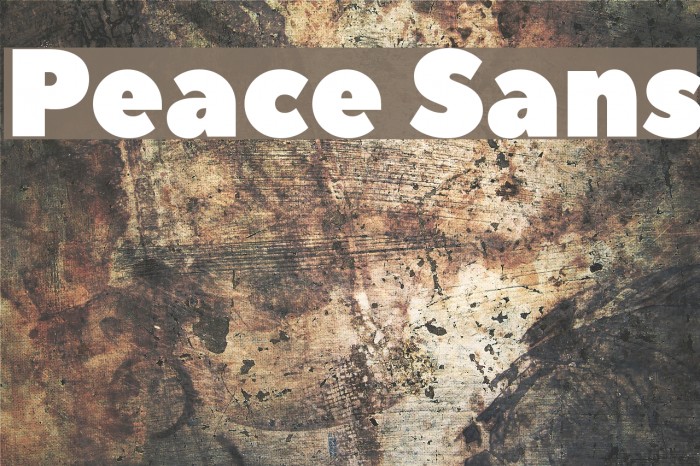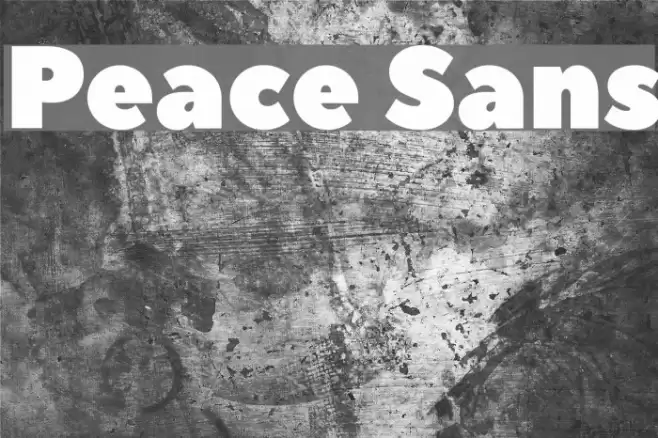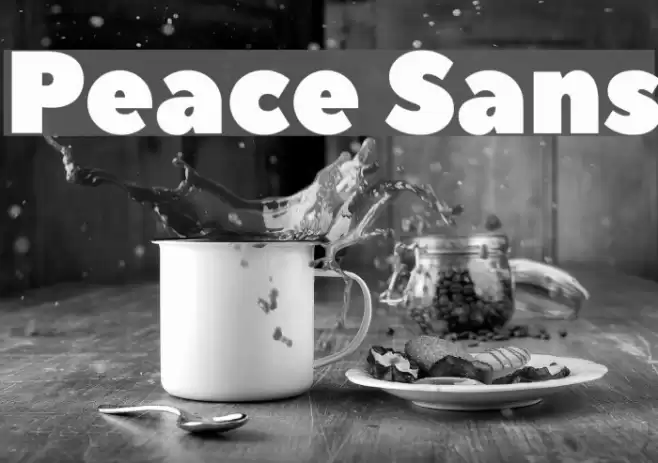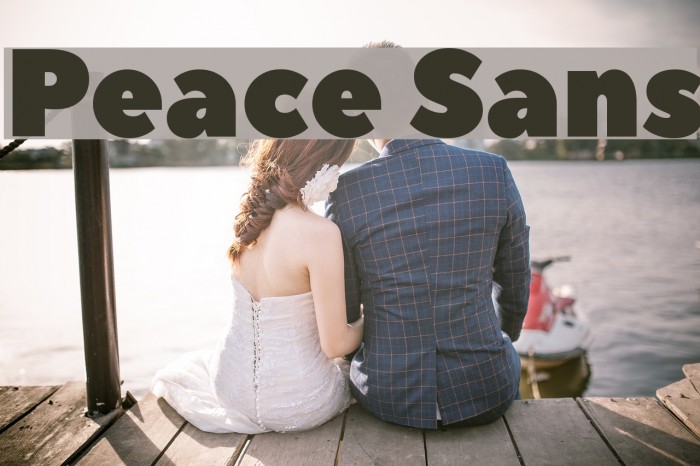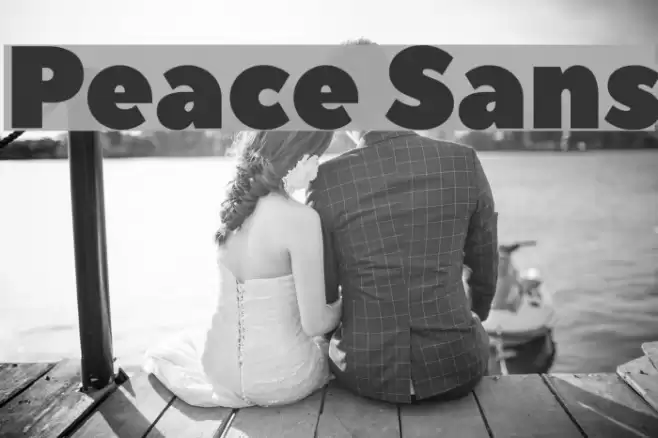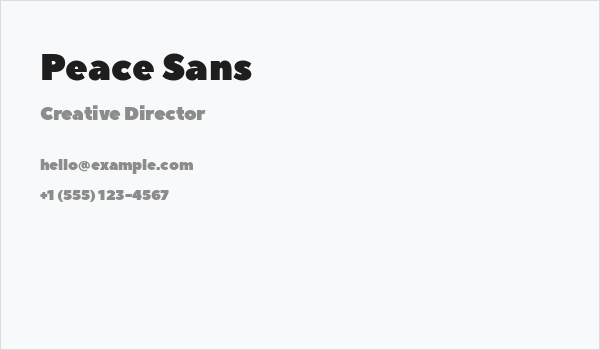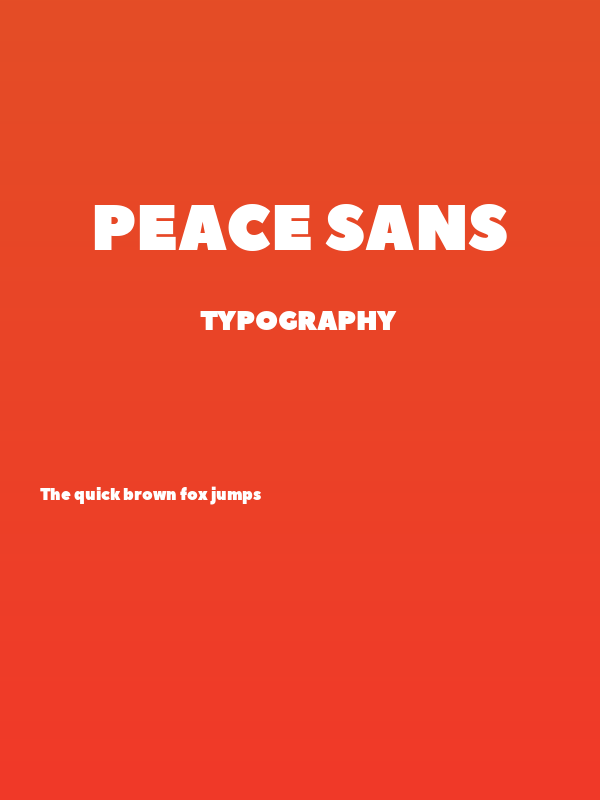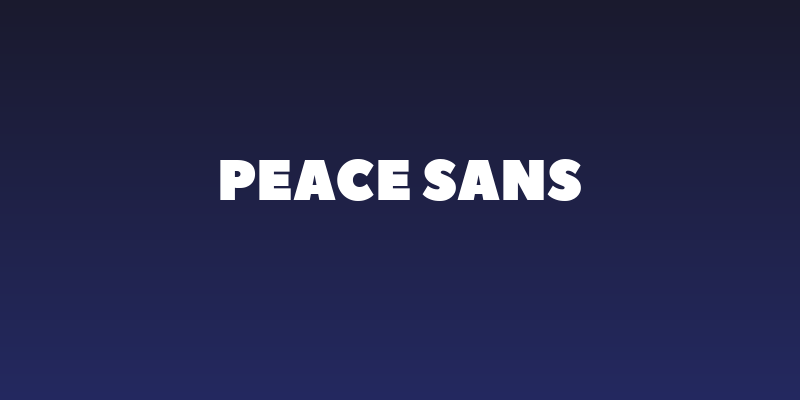
Peace Sans Font
Peace Sans Description
This font features bold, rounded characters with a strong presence. The uppercase and lowercase letters maintain a consistent weight, creating a harmonious look. The numbers and special characters are equally bold, ensuring readability and impact. The font's design is clean and modern, with a slight geometric influence that adds to its contemporary appeal. Its thick strokes and uniform width make it ideal for attention-grabbing headlines and logos. The overall style is approachable yet assertive, making it versatile for various design projects.
| Proposed Projects | Ideal for branding, headlines, posters, and social media graphics. |